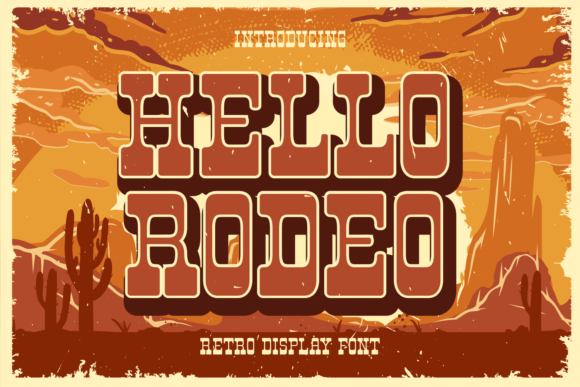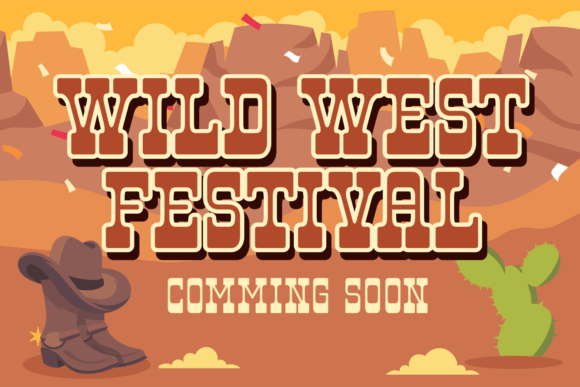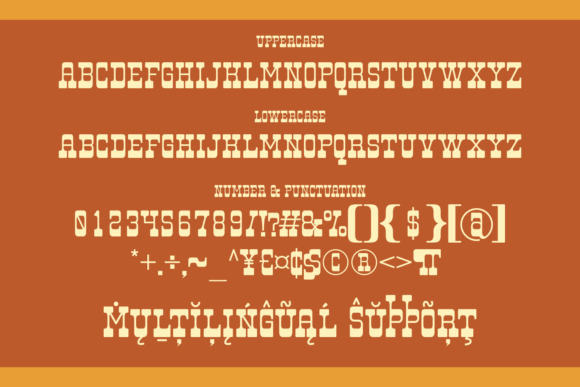
Hello Rodeo Font
Hello Rodeo is a cool, vintage-style display font. Its western-inspired characters make it the perfect choice for retro headlines, posters, banners, bar plates, diner menus, and more!